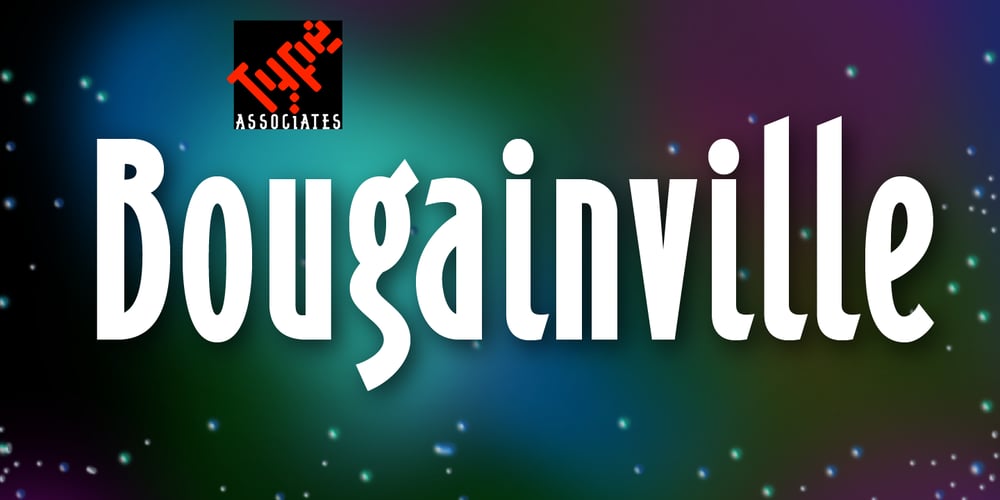
Bougainville Font Family was designed by Russell Bean and published by Type Associates. Bougainville contains 4 styles and family package options. Bougainville was inspired by many of my favorites and has been on the drawing board in excess of ten years. Only this year I decided to expand the original 1994 design to include other weight variants. The quirky Binner Gothic-inspired high axis and its funky g, rounded e, angled stroke endings together with the influence of contemporary designs such as Officina Sans, Din Mittelschrift and MetaPlus, Bougainville exhibits a similar flavor and compactness to Bodega Sans. This typeface family has been named in honor of the renowned eighteen-century French mathematician and explorer Louis-Antoine de Bougainville to whom we owe the naming of South Sea Islands and colorful tropical flora he discovered along his journey. Bougainville makes for effective headings at any size and is equally readable at semi-display sizes.